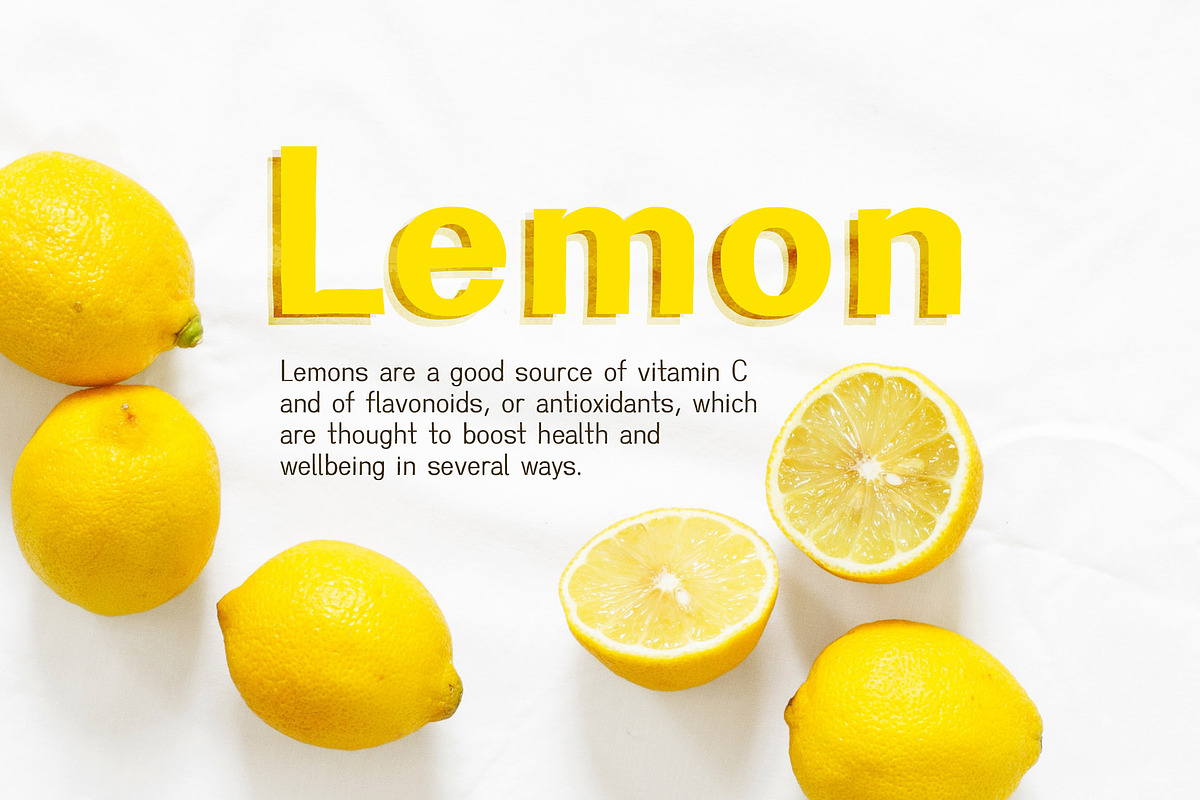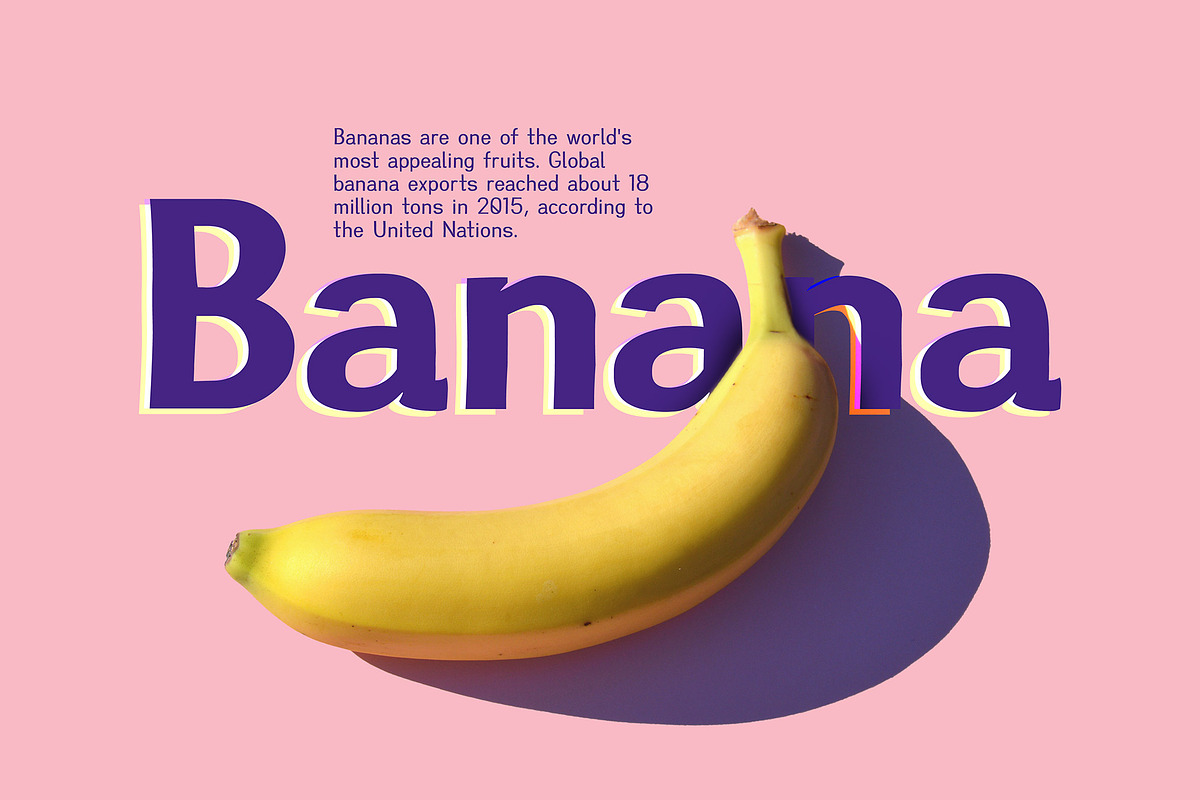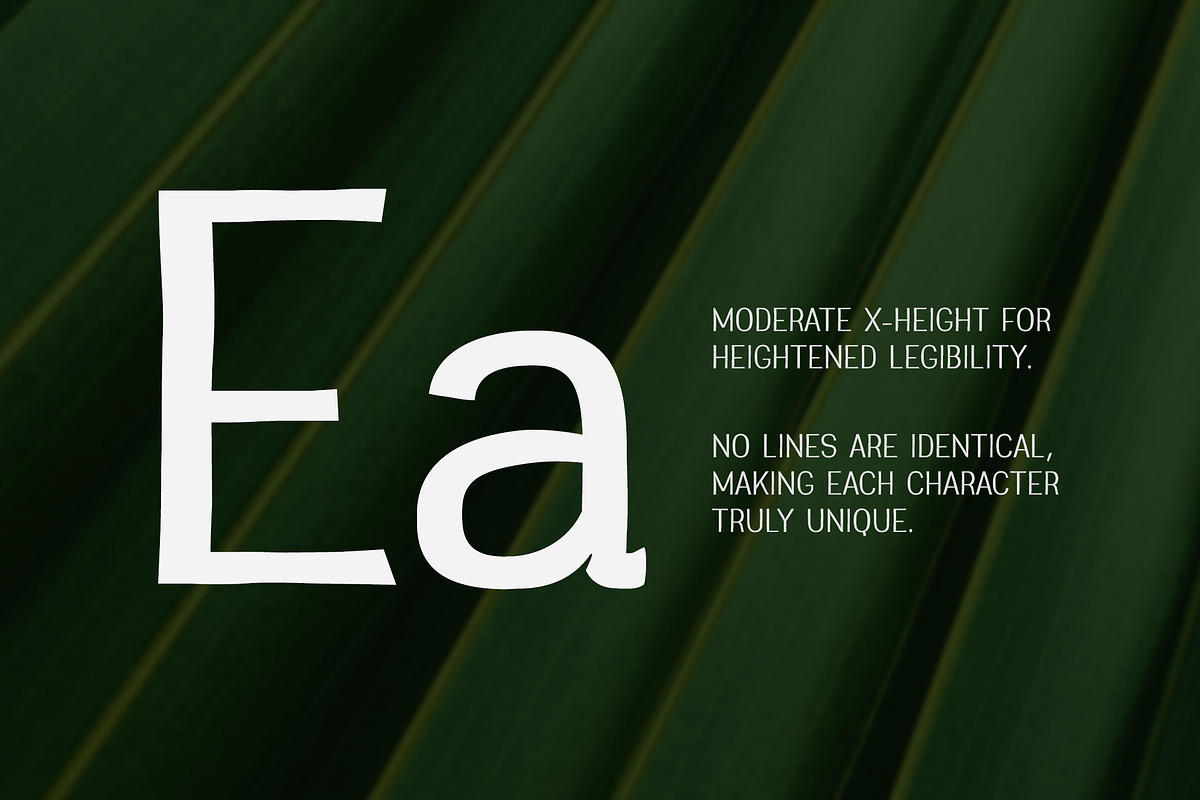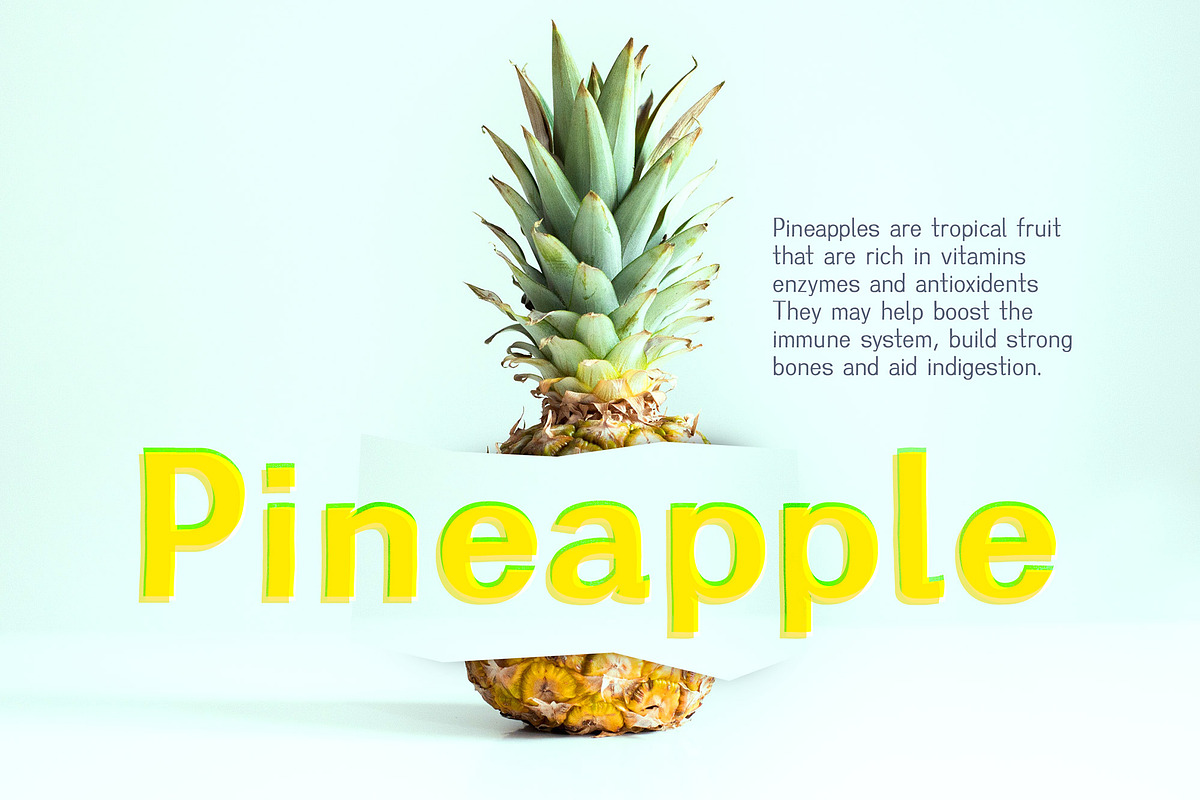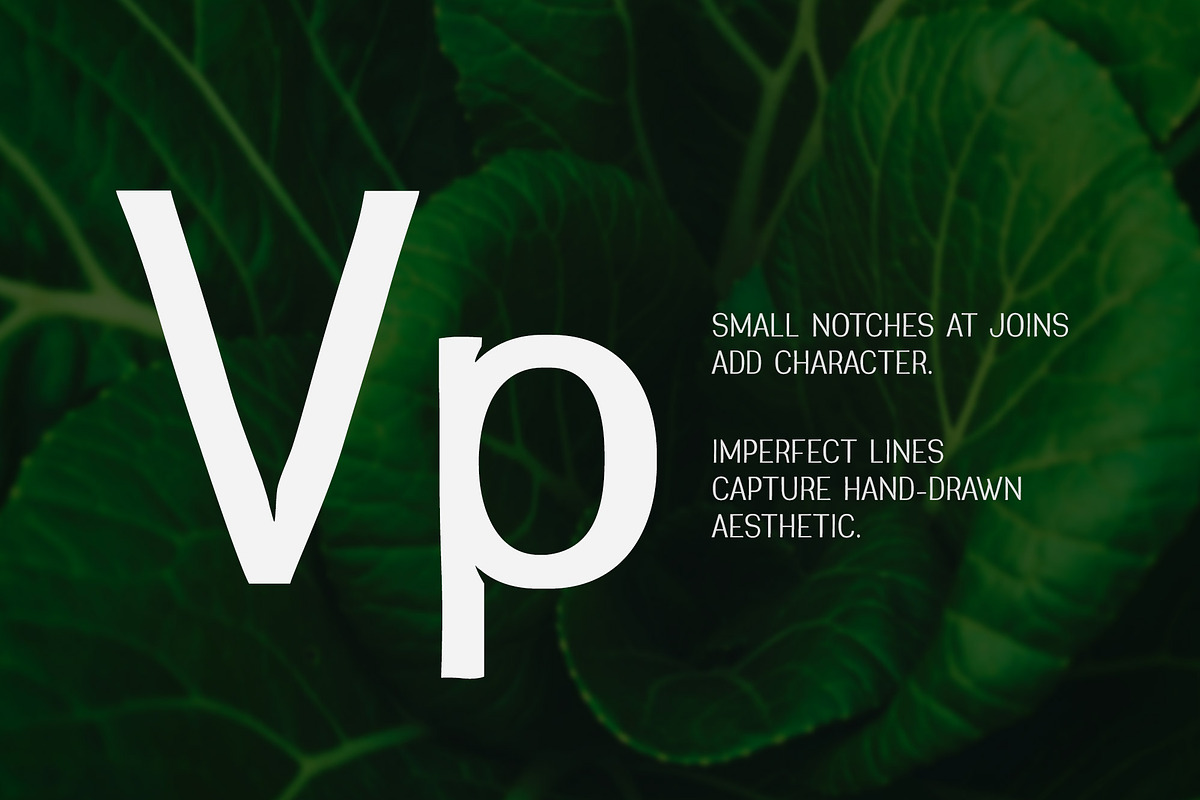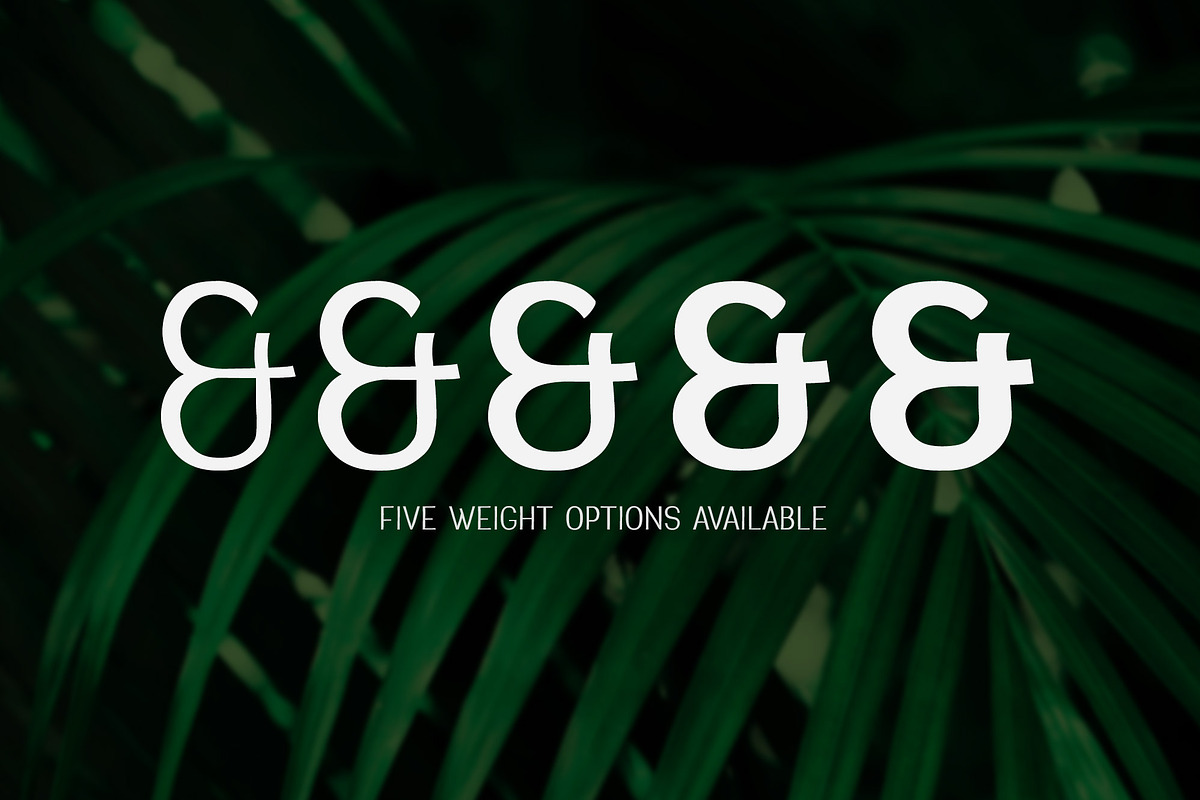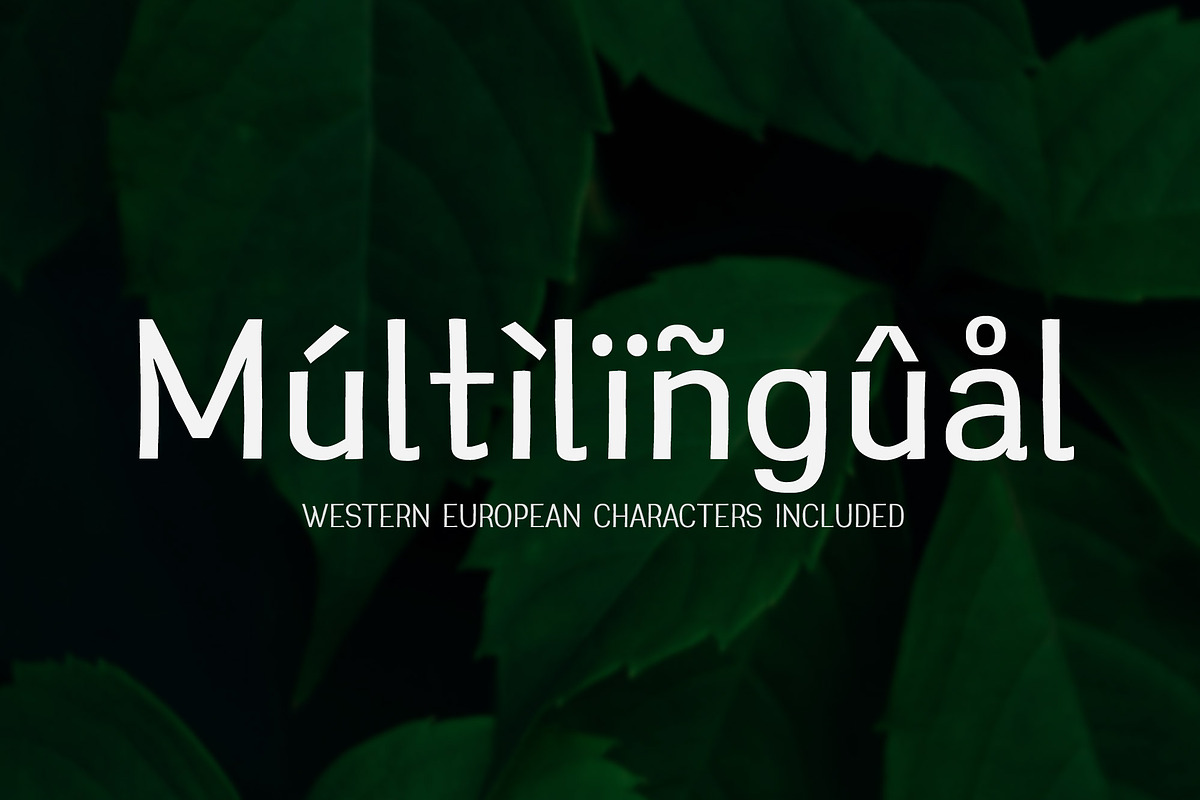
Greenstyle Great Vibes Casual Font
Introducing Greenstyle, a casual handcrafted typeface from Parker Creative!
Greenstyle is a hybrid typeface that takes the imperfections of natural handwriting and marries it with the cleanliness of evenly weighted sans-serifs. The result is a clear, breathable look with casual hints of character and rustic style.
Greenstyle works well for projects that require that friendly hand-crafted touch but also need to be highly legible for various sizes (like a casual dining restaurant menu, or eye-catching promotional material). Try Greenstyle out on your menus, business cards, flyers, digital signage, and more!
The Greenstyle font family is comprised of five (5) weights.
- Greenstyle Light
- Greenstyle Regular
- Greenstyle Medium
- Greenstyle Semibold
- Greenstyle Bold